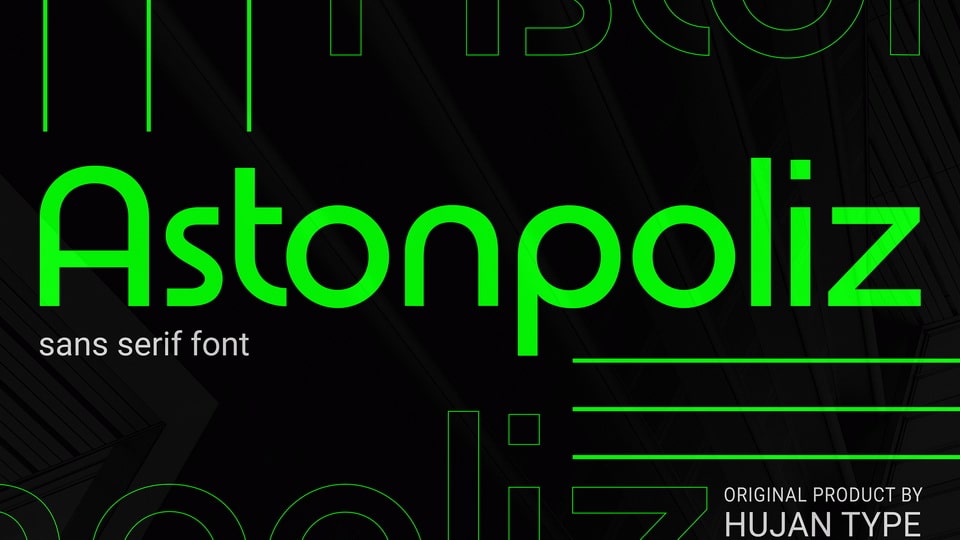
Download Astonpoliz font, a modern sans serif typeface based on geometric shapes and have no contrast between strokes. Astonpoliz is a versatile font is suitable for your modern style projects.
Designer: Hujan Type